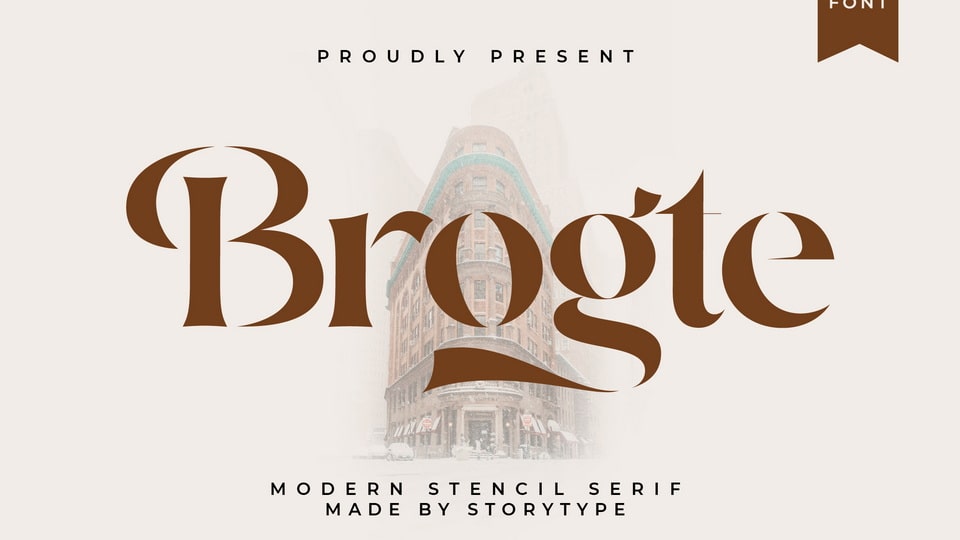
Download Brogte font, a graceful serif typeface that has own unique style and modern look. Brogte font is perfect for an elegant and luxury logo, book or movie title design, fashion brand, magazine, clothes, lettering, quotes, and so much more.